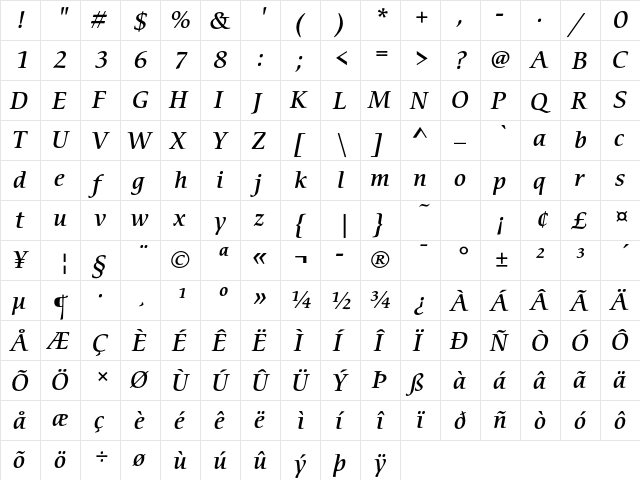
ITC Cerigo Std Medium Italic
| Designer | Jean-Renaud Cuaz |
Design Context for ITC Cerigo Std Typeface
ITC Cerigo Std offers clean, dependable letterforms without strong stylistic allegiance, making it a practical choice for designers who need flexibility. The slanted form adds forward momentum and visual energy.
Pro Tip: Try ITC Cerigo Std for annotation and caption copy alongside an upright companion — the contrast in angle creates a dynamic but ordered typographic system.